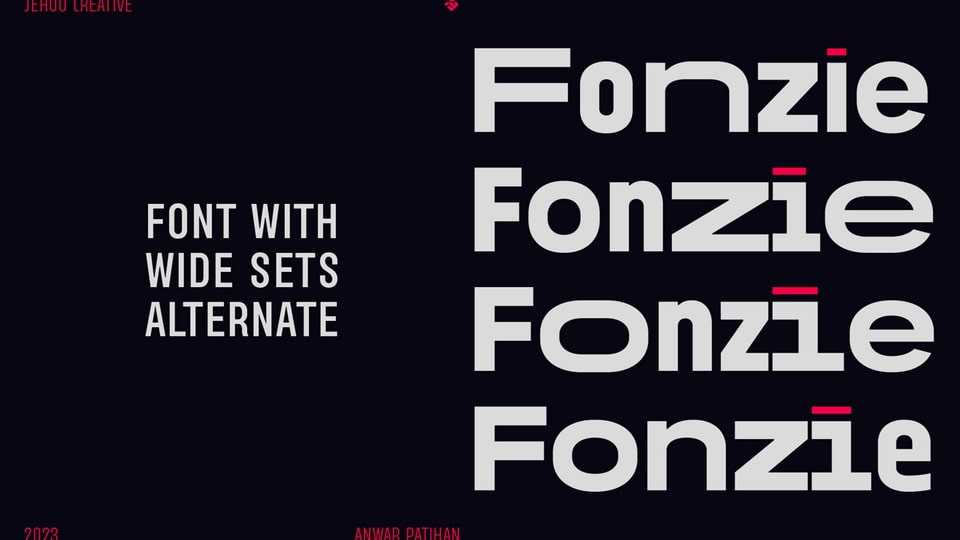
Download Fonzie font, a sans serif typeface that redefining versatility. With four charming styles seamlessly blended together, Fonzie font offers the perfect balance between tradition and innovation.
Designer: Jehoo Creative